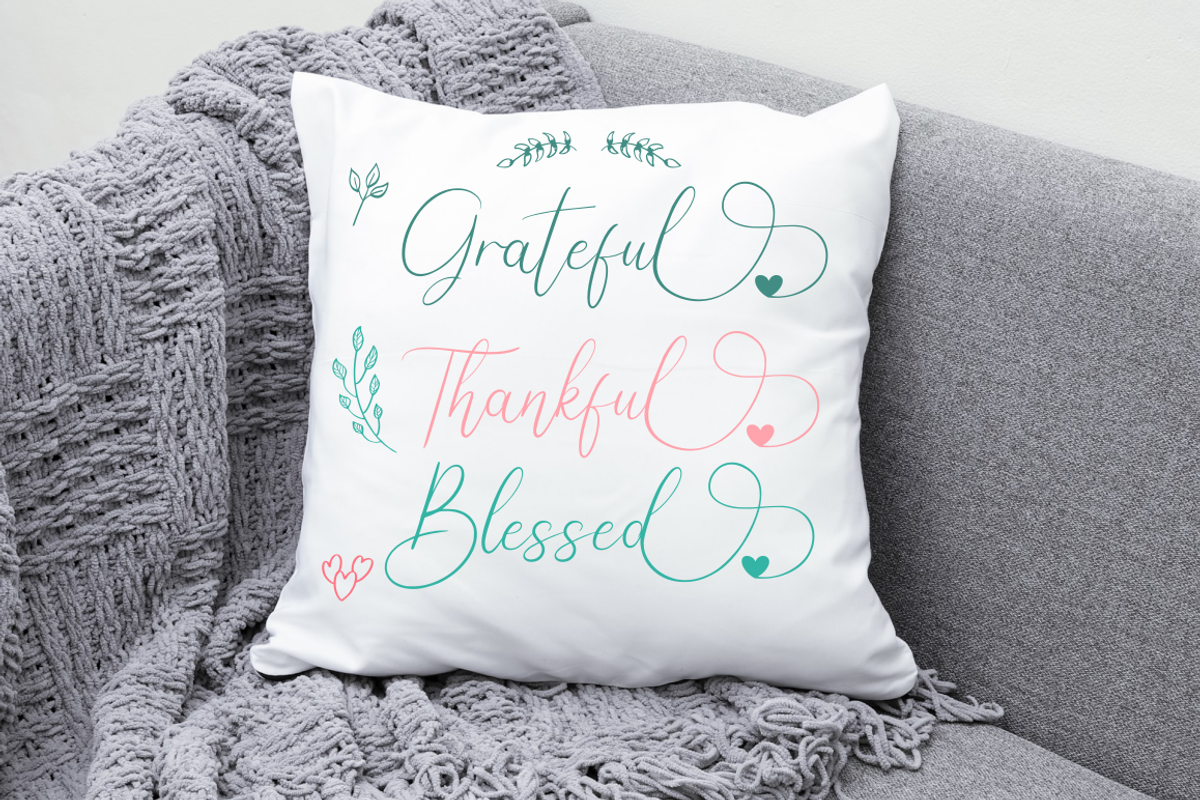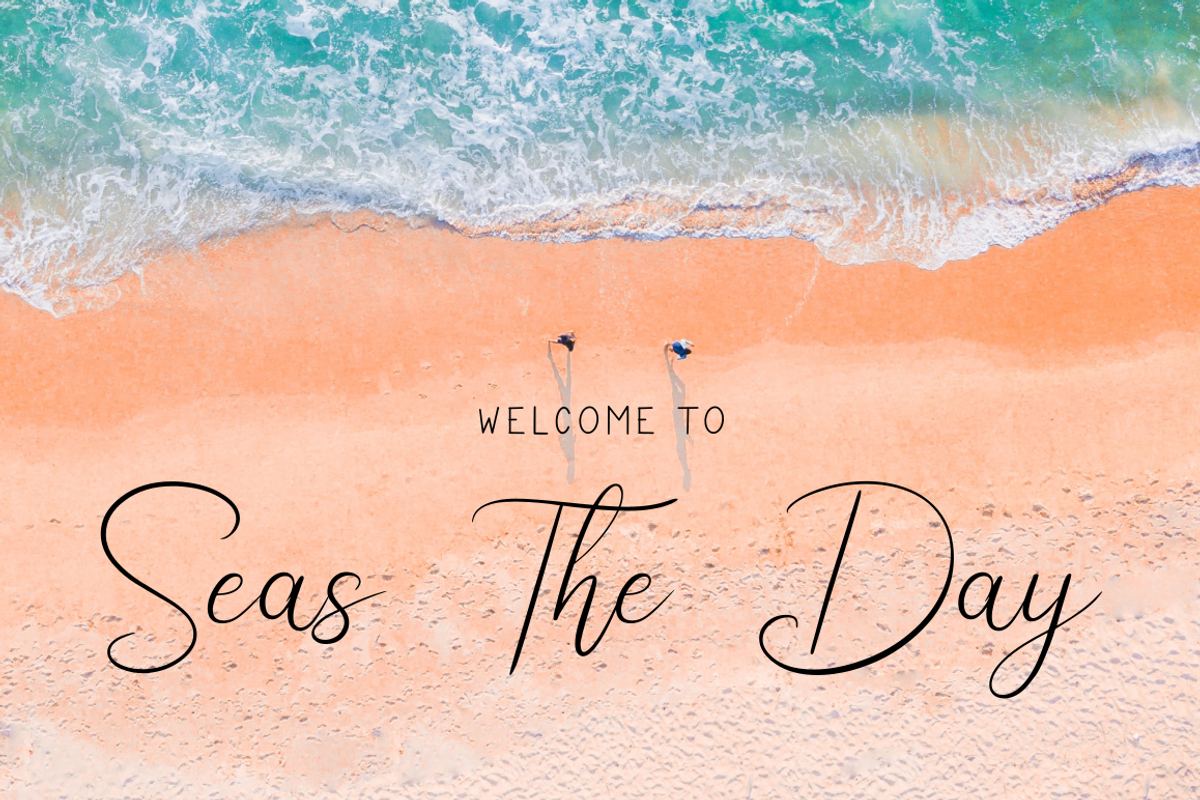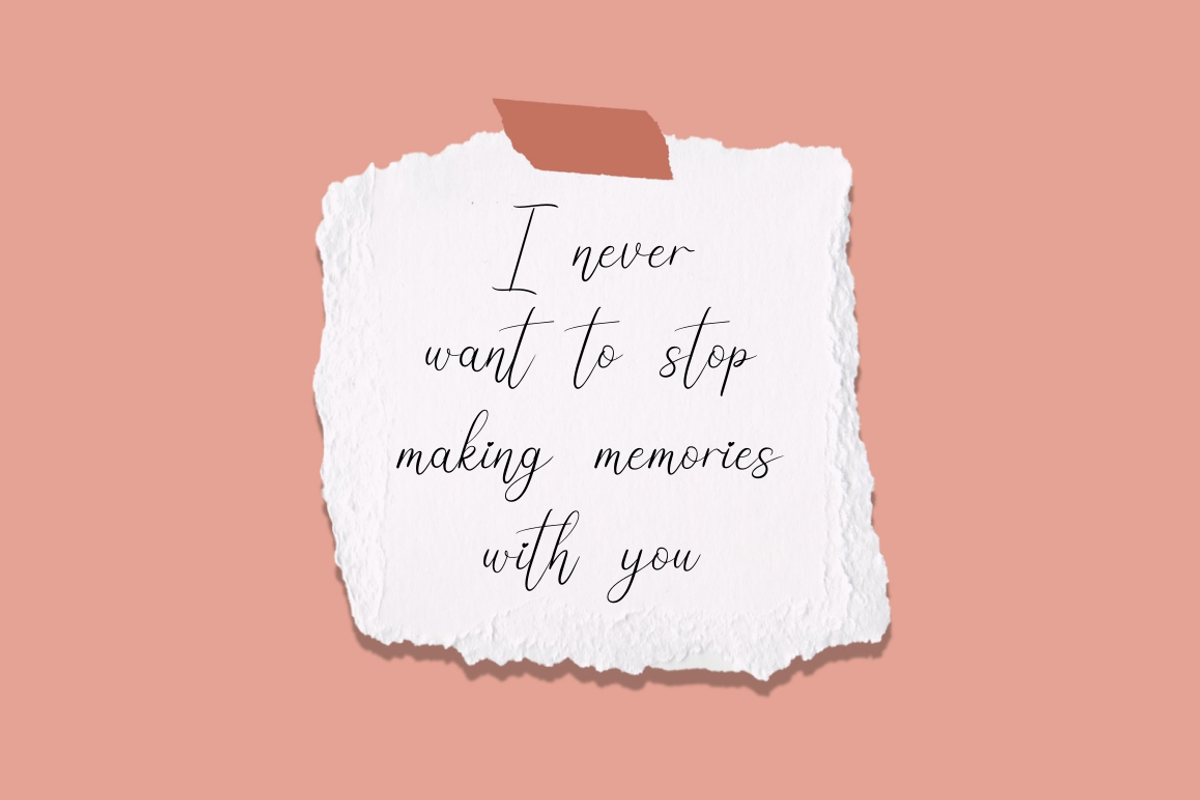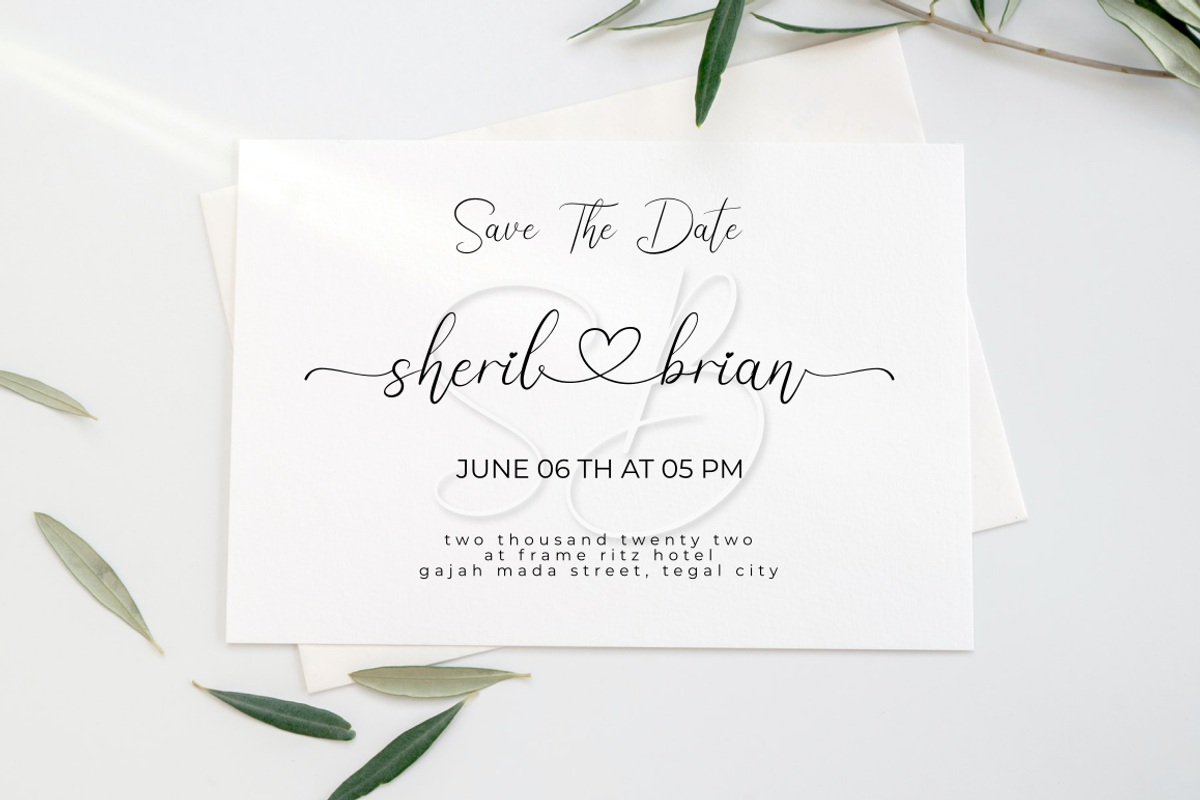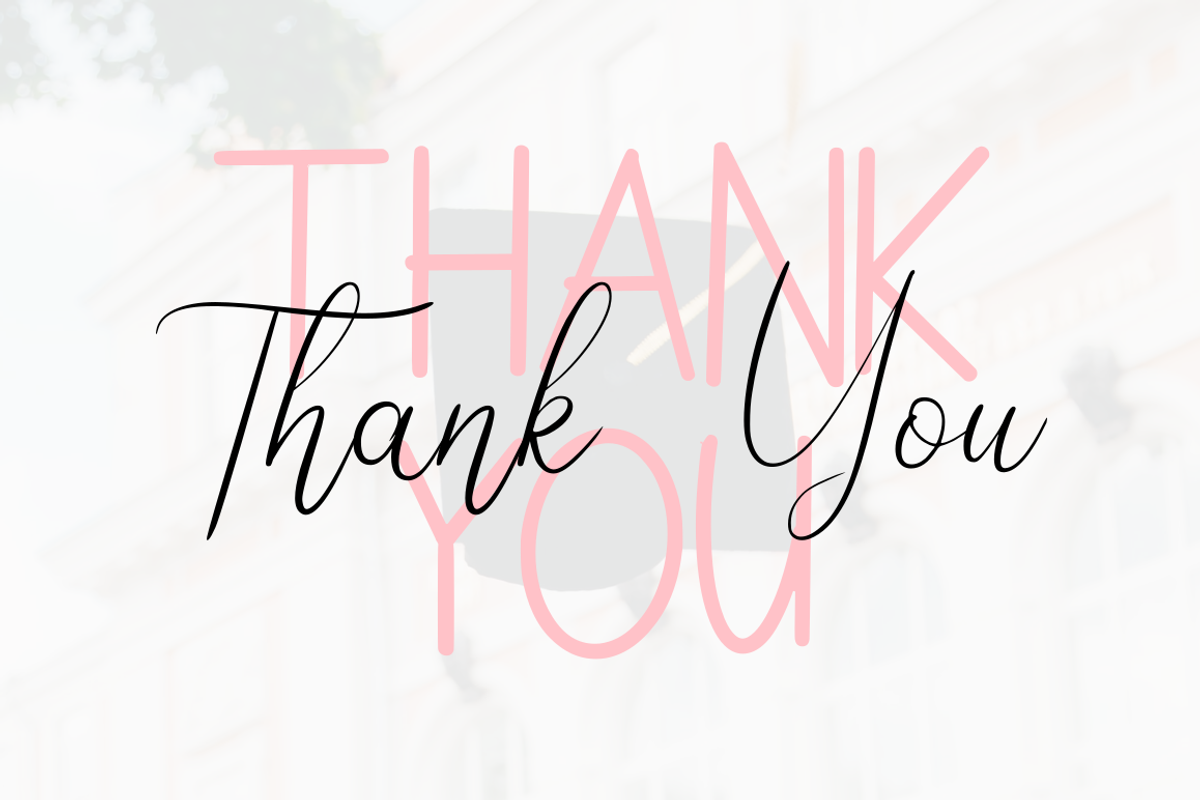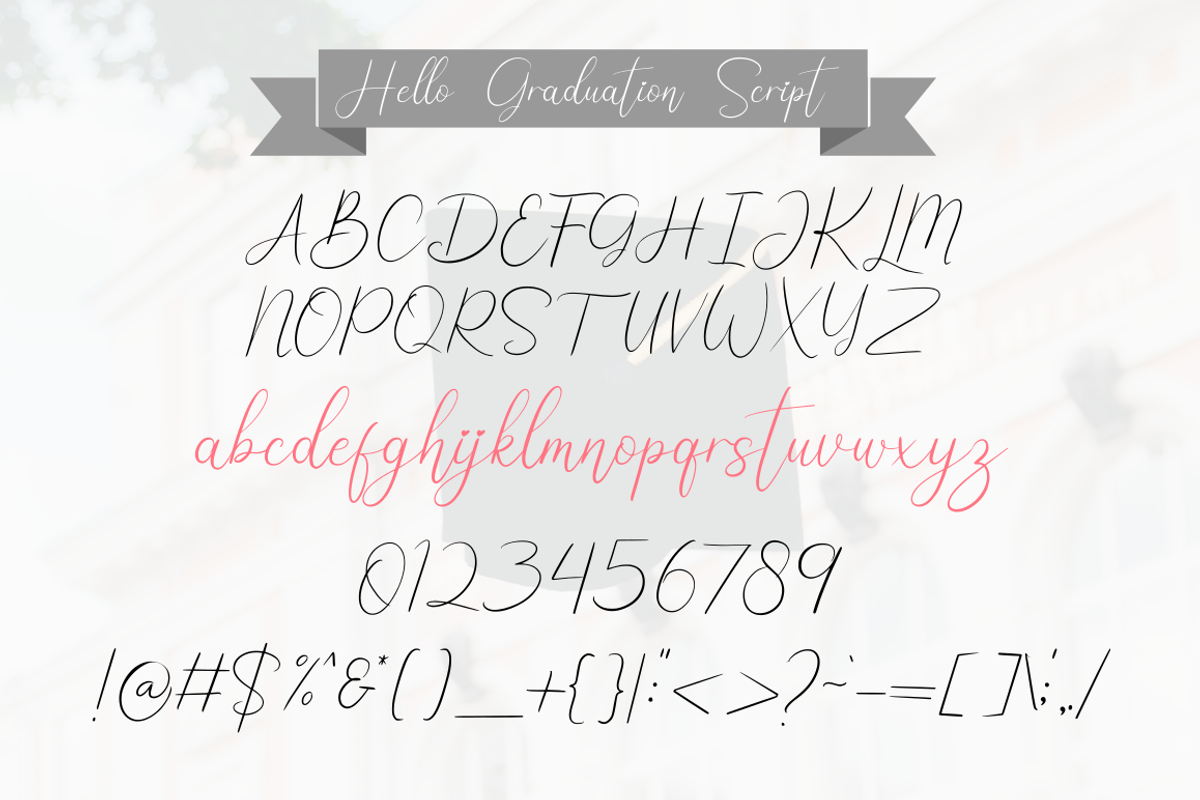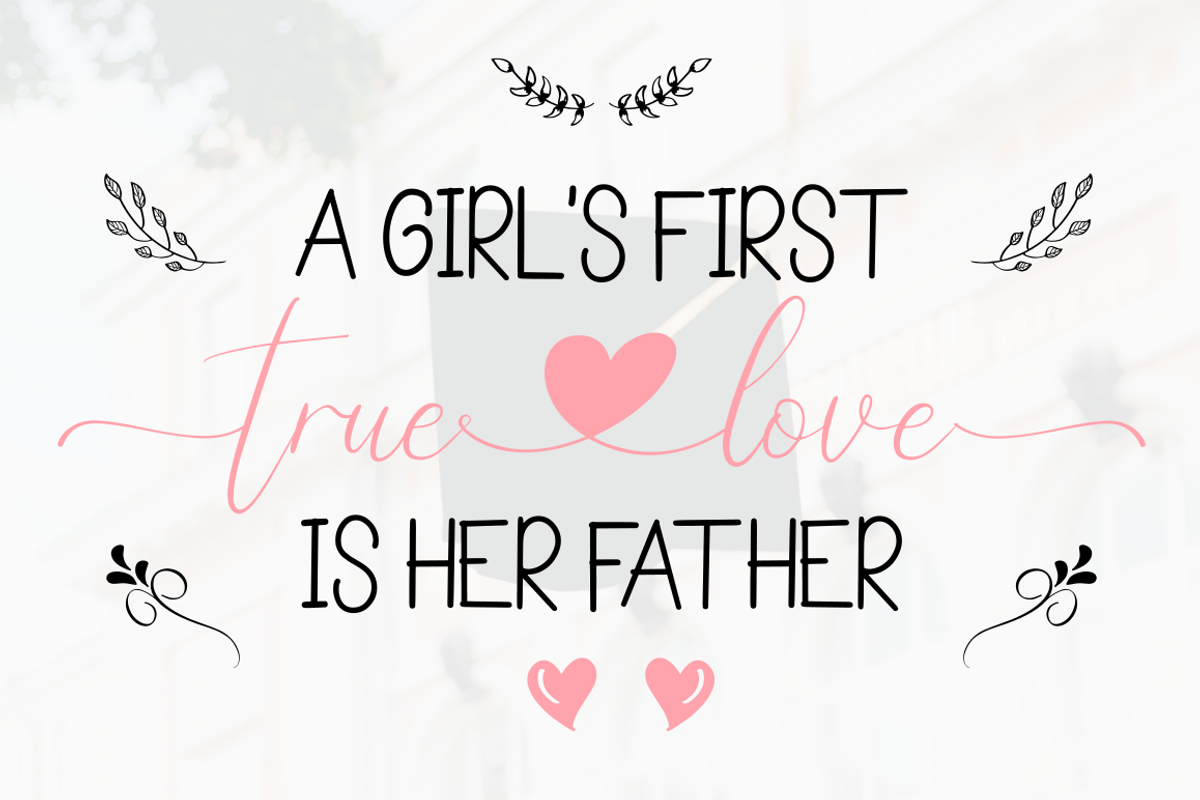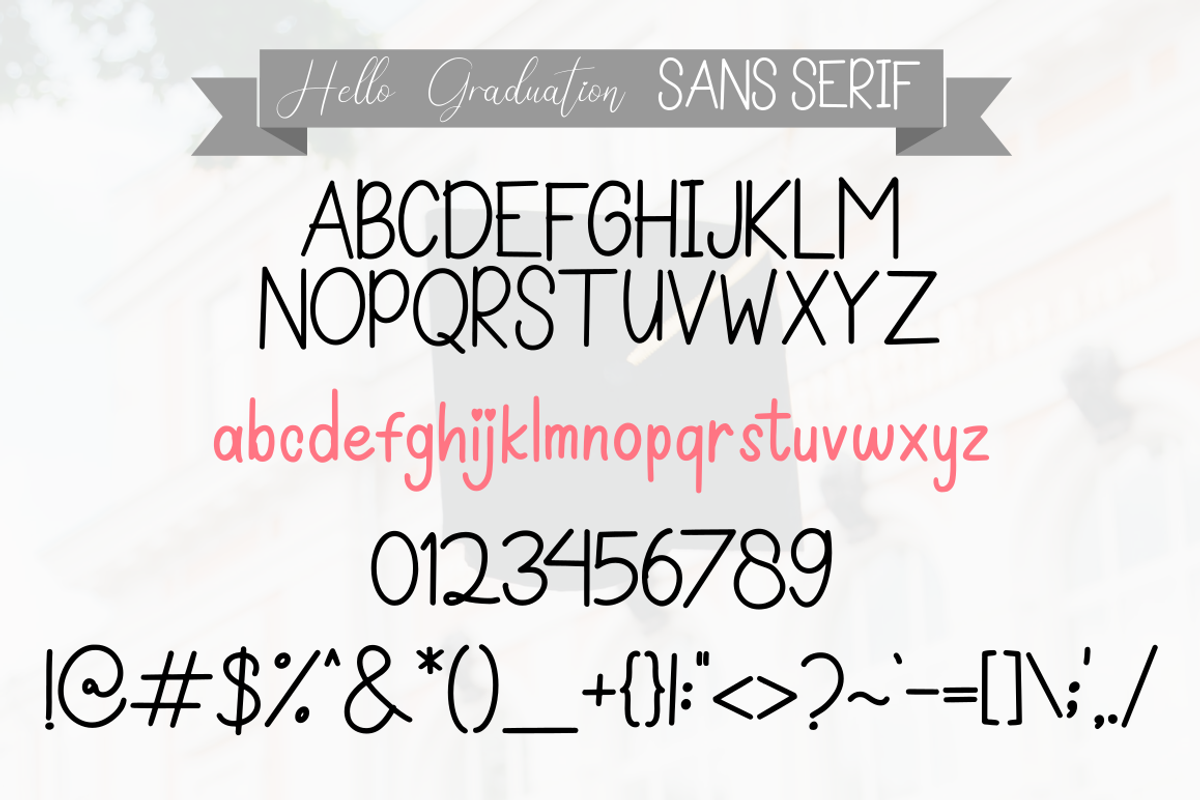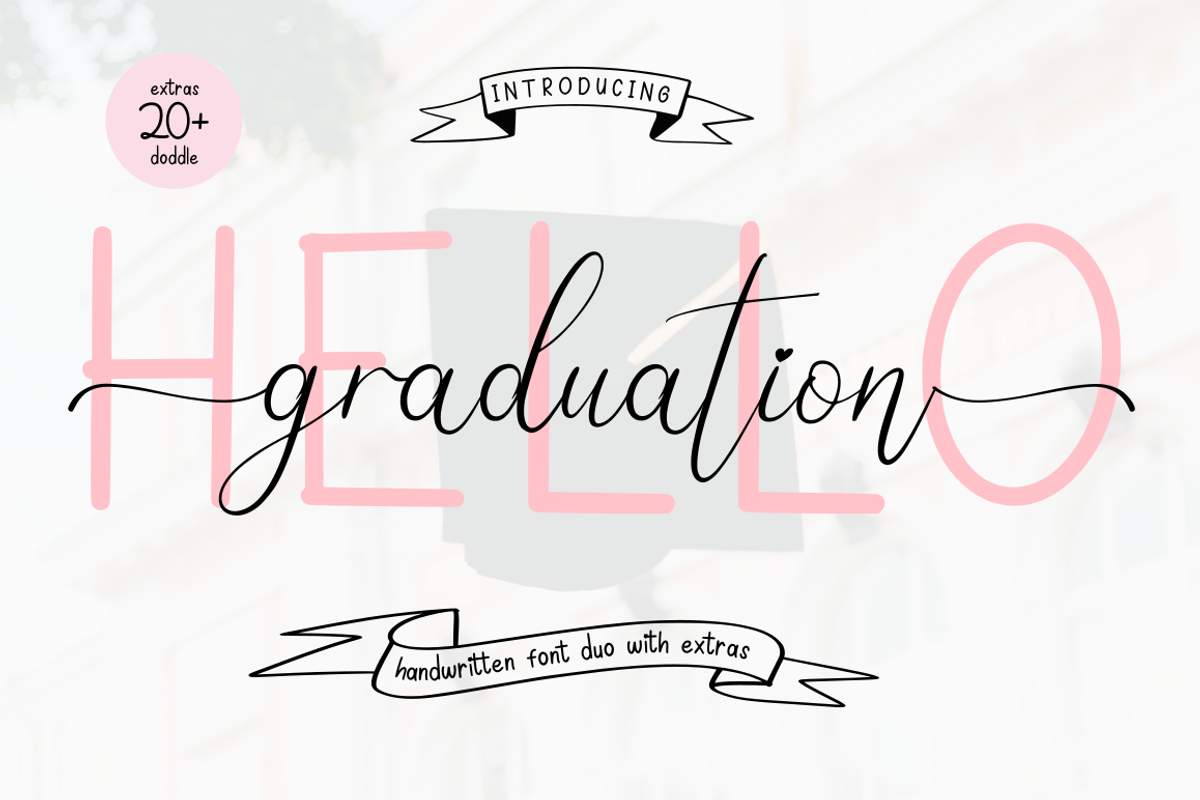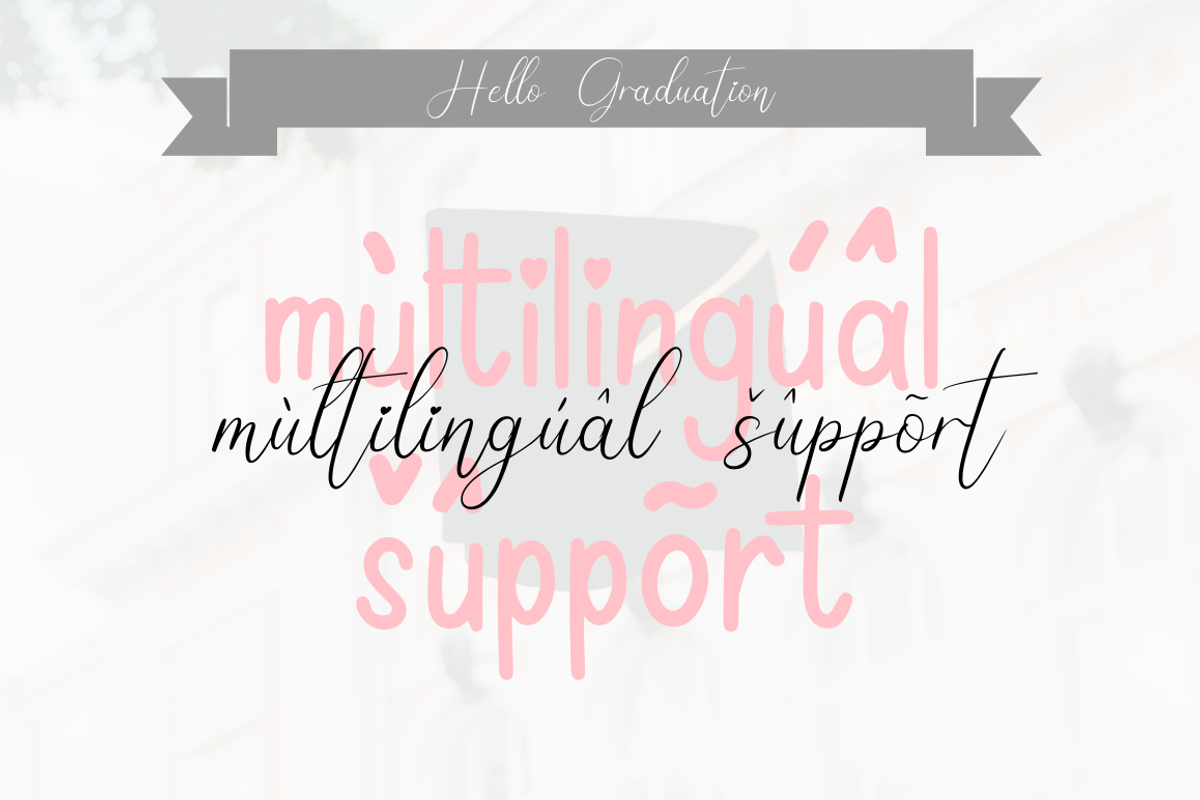
Hello Graduation | Font Duo
Hello Graduation Font is a beautiful and playful font, featuring handwriting script and handwriting sans serif fonts, support for 50+ languages
- Alternates Glyph